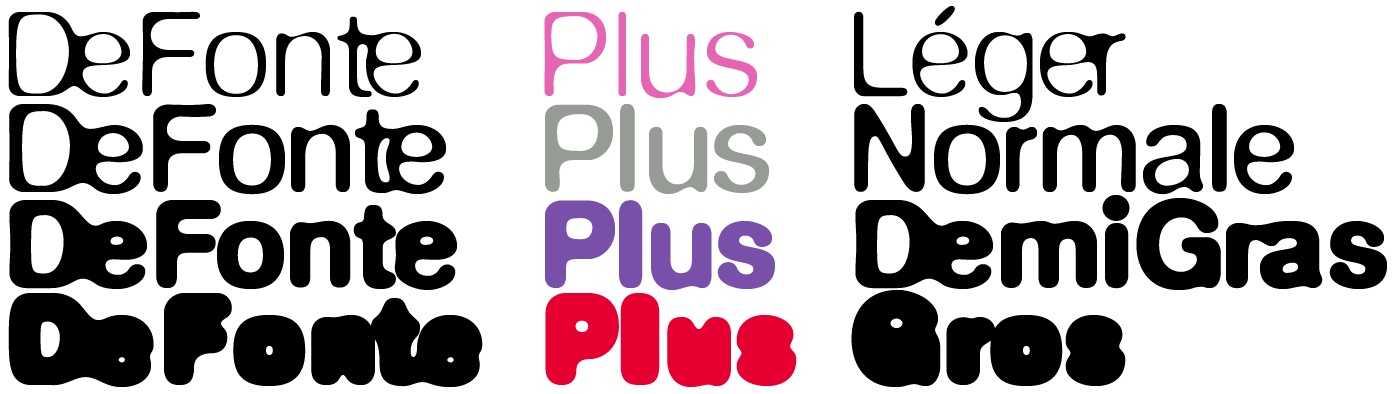
DeFonte Plus Font
DeFonte Plus Font is perfect for professional corporate branding, systematic business communications, structured presentation design, enterprise software interfaces, organized information systems, methodical documentation layouts, efficient workflow graphics, and comprehensive business solutions.
What makes DeFonte Plus Font exciting is its systematic enhancement that embodies comprehensive functionality and professional optimization with enhanced capabilities and enterprise-grade reliability. The font features structured letterforms with optimized proportions and enhanced character that evoke organized systems, professional workflows, and the comprehensive efficiency of enterprise-level business operations and systematic excellence. Its distinctive enhanced styling and systematic appeal communicate competence, reliability, and professional optimization, making every message feel systematically processed and touched by the enhanced efficiency of comprehensive business solutions and professional excellence.
The DeFonte Plus Font family includes regular weight with uppercase and lowercase letters, numerals, punctuation marks, and comprehensive business symbols. Premium versions often feature multiple weights and systematic alternates that provide enhanced typographic solutions for complex enterprise and professional applications.
This enhanced professional typeface brings instant credibility and systematic authority to any enterprise-focused project. DeFonte Plus Font Free Download delivers exceptional results for business organizations and professional services seeking to communicate systematic excellence, comprehensive functionality, and enhanced professional capabilities to corporate audiences and enterprise clients.
The systematic character of DeFonte Plus Font makes it particularly valuable for enterprise software companies, professional consulting firms, and systematic business solutions providers. Its excellent readability ensures complex business communications and systematic documentation remain clear while maintaining the distinctive enhanced aesthetic that appeals to professionals seeking comprehensive business solutions and systematic efficiency.
Enterprise business marketers appreciate how DeFonte Plus Font effortlessly conveys systematic competence and enhanced professionalism. The font's optimized proportions and systematic details create reliable business materials that establish trust with audiences who value comprehensive solutions, systematic thinking, and the enhanced efficiency of professional enterprise operations and business optimization.
The versatile enhancement of this typeface extends to business process improvement, enterprise training, and systematic consulting where enhanced authenticity drives competitive advantage and professional appeal. DeFonte Plus Font Free Download provides creative professionals with an essential tool for developing memorable, efficiency-driven designs that resonate with audiences who embrace systematic enhancement, professional optimization, and the comprehensive excellence of enhanced business solutions in today's enterprise environment.